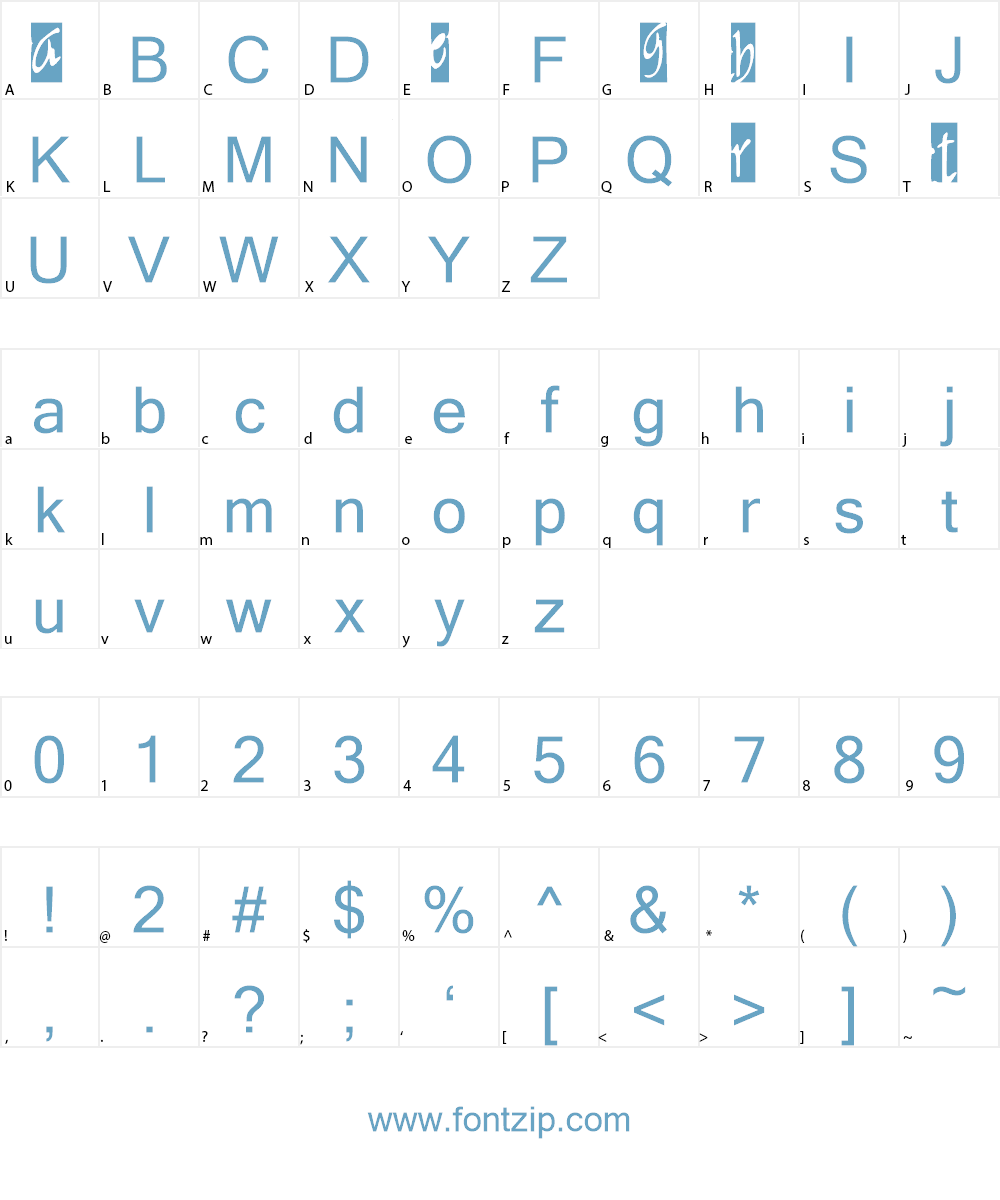
When GIA Publications released one of the first editions of the Gather Comprehensive hymnals in 1988, it became widely used in churches throughout the United States of America. The font that I have created is from the 1994 edition. So the credit for the logo itself goes to GIA Publications.